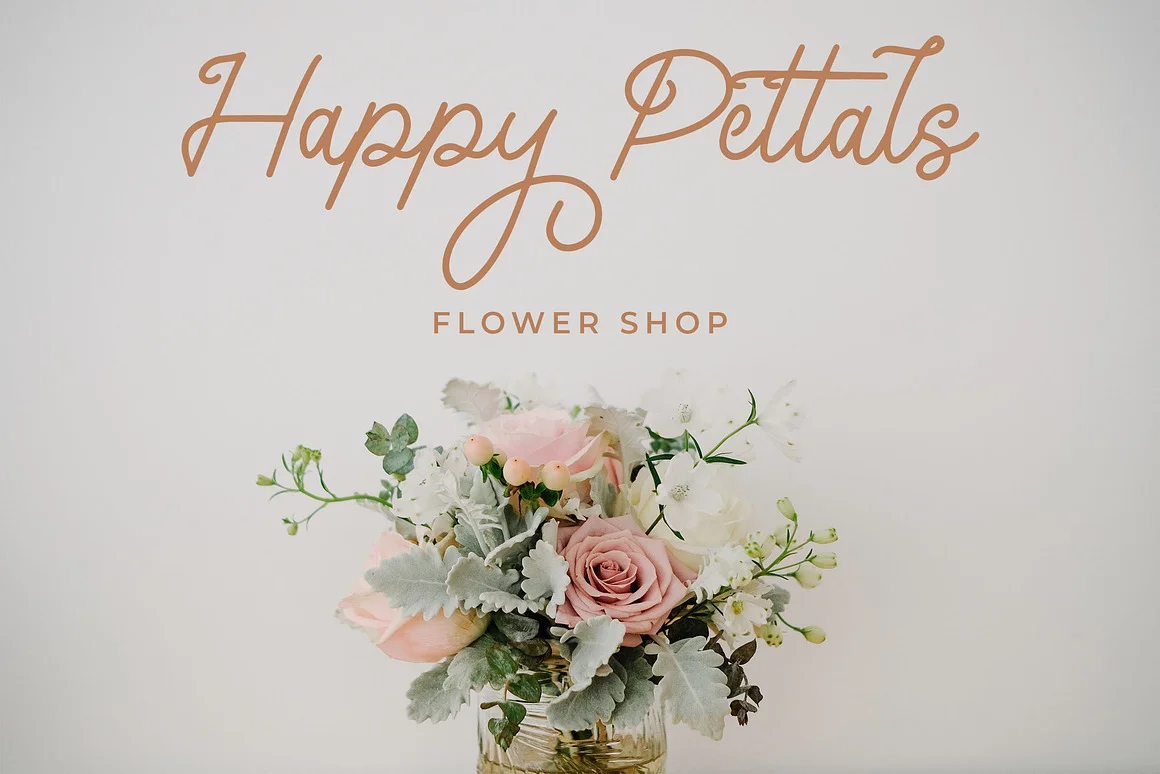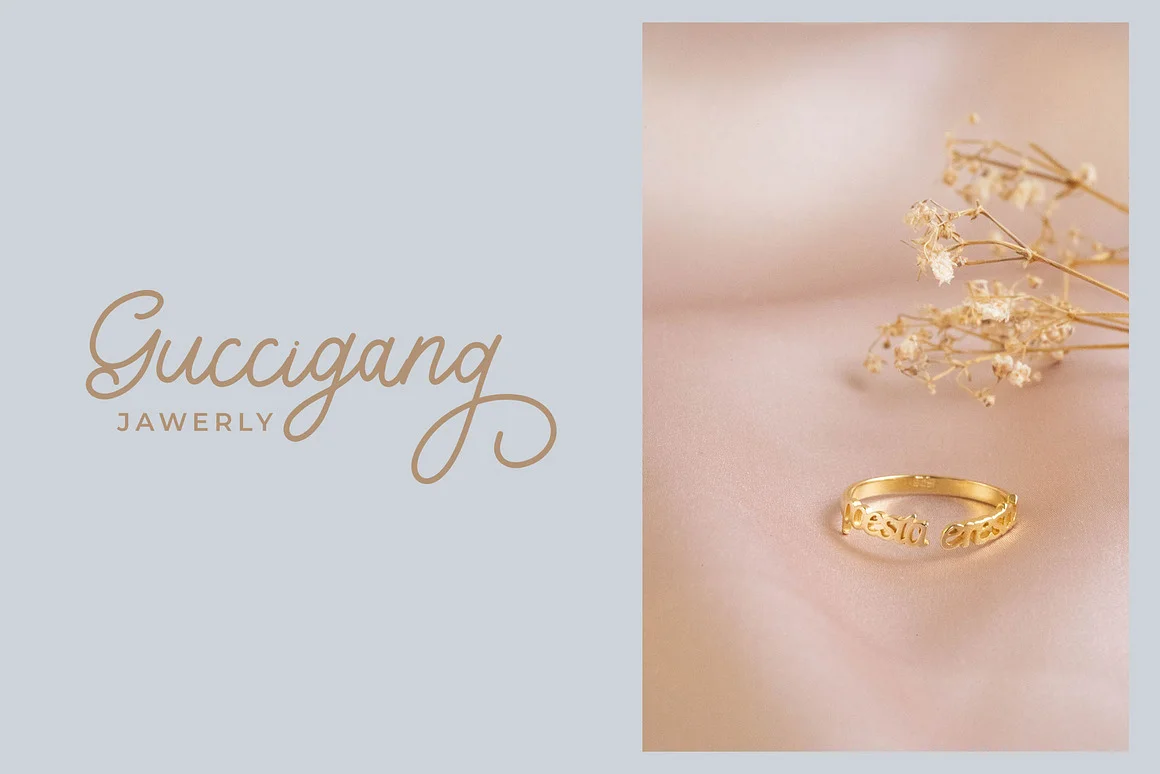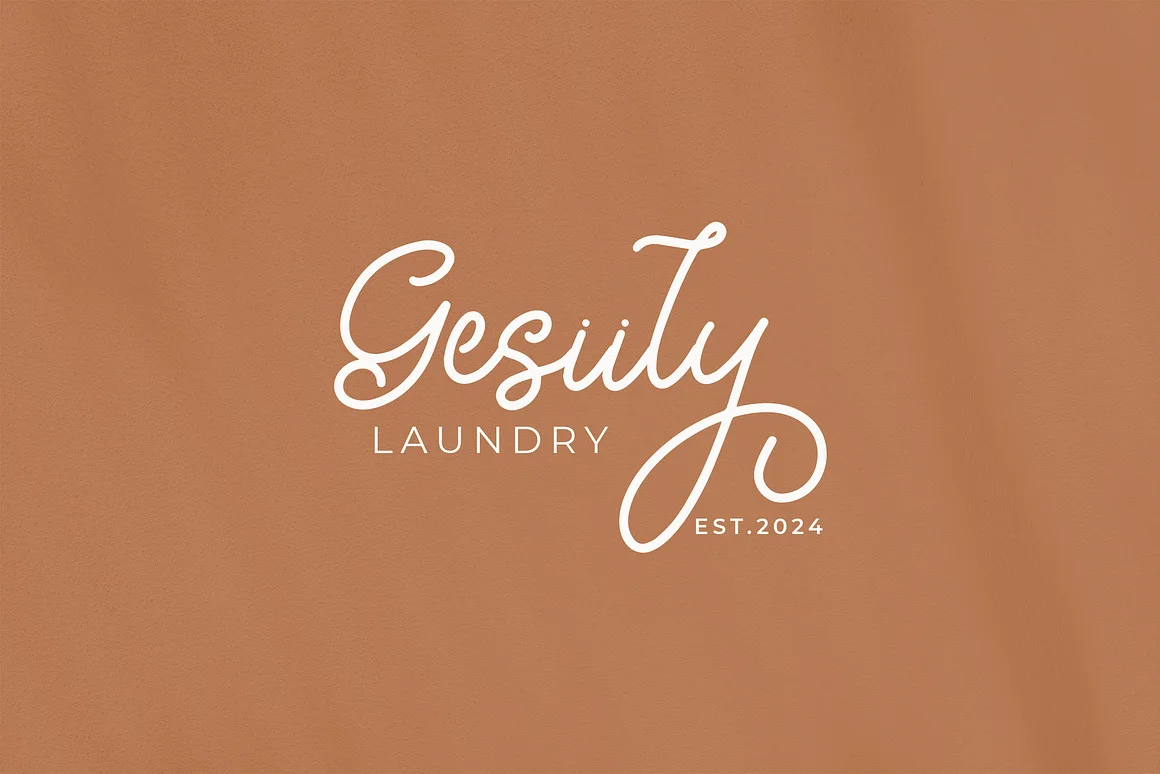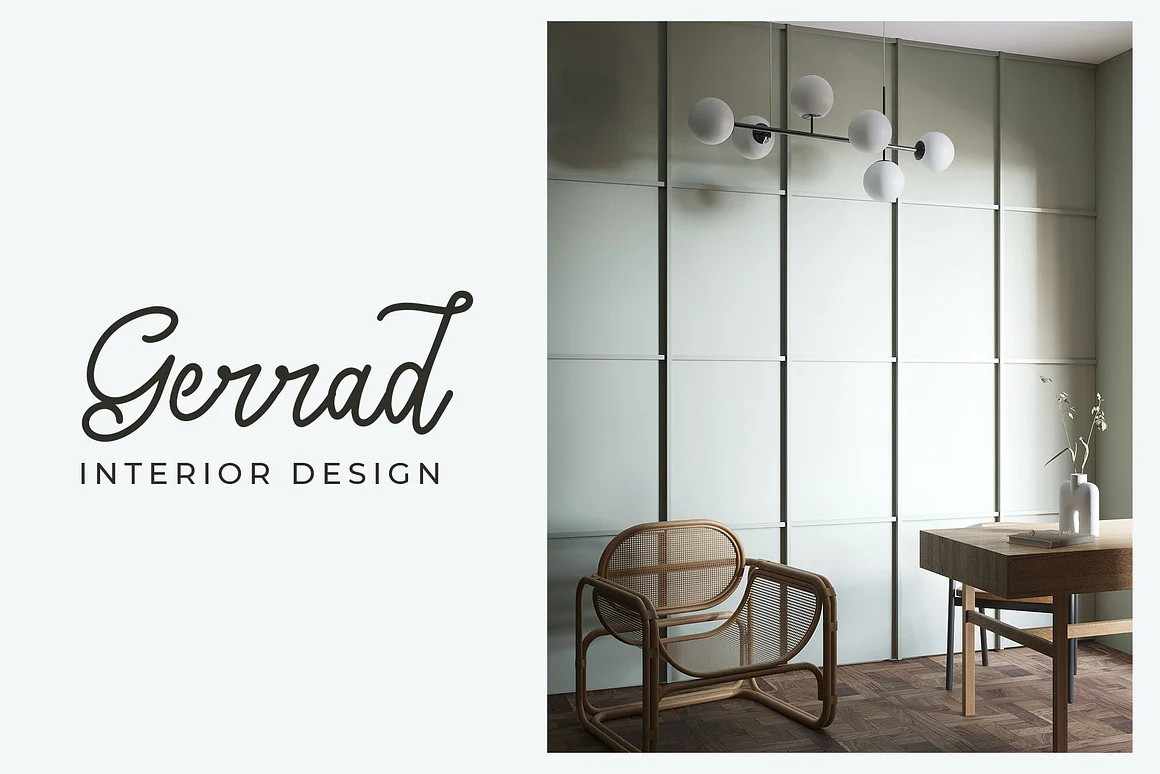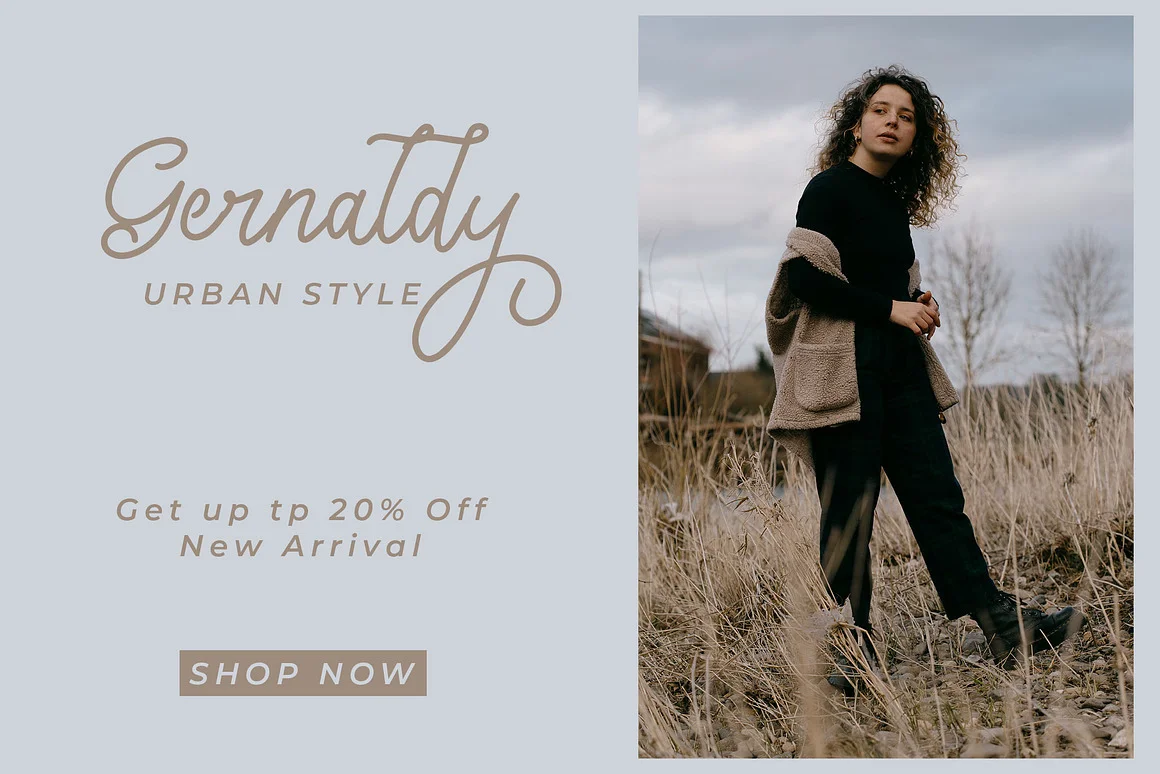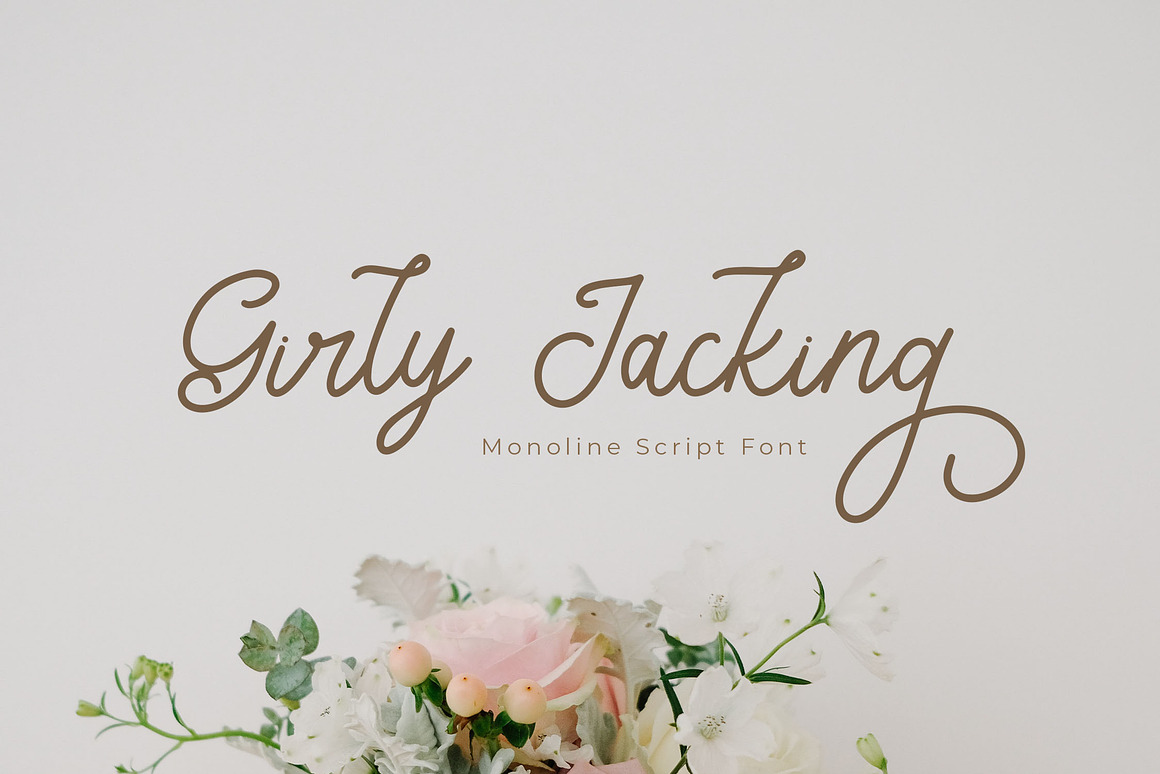
Girly Jacking Monoline Script Font
Typography shapes perception at a subconscious level. Girly Jacking Monoline Script leverages controlled contrast that rewards close inspection to make every composition feel considered. The typeface brings an elegant, calligraphic sensibility to a broad range of creative disciplines, with distinctive character without sacrificing readability that holds up whether the work is print-first or screen-first.
In practice, Girly Jacking Monoline Script proves particularly effective for poster creation, beauty packaging, advertising campaigns, luxury stationery, environmental graphics. Designers reaching for it find that the type decisions feel resolved rather than laboured — a useful quality when client timelines are tight.
The range of applications extends to boutique logos, editorial layouts, fashion editorials, fragrance labels. That breadth is deliberate: the proportions and spacing were stress-tested across a wide range of mock briefs before the typeface was finalised.
Pairing Girly Jacking Monoline Script with a contrasting serif or a neutral grotesque gives mixed-format layouts a clear visual grammar without requiring constant size adjustments to establish hierarchy.
Brand strategists building visual languages find Girly Jacking Monoline Script a reliable choice for projects that demand both personality and restraint. The design avoids the self-conscious quirkiness that dates quickly, settling instead for considered distinctiveness that holds up over time.